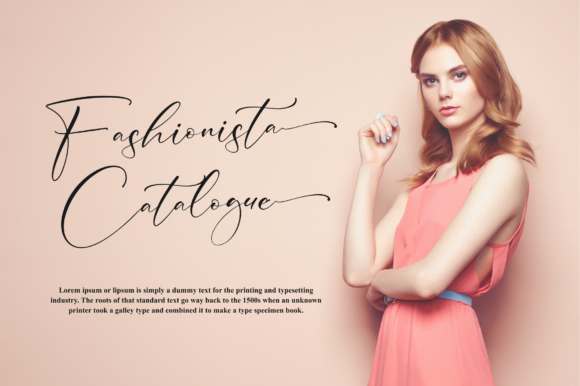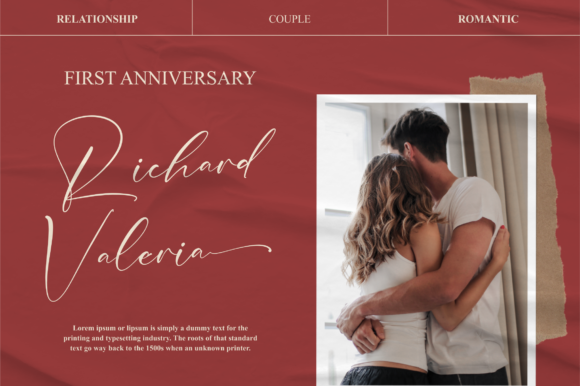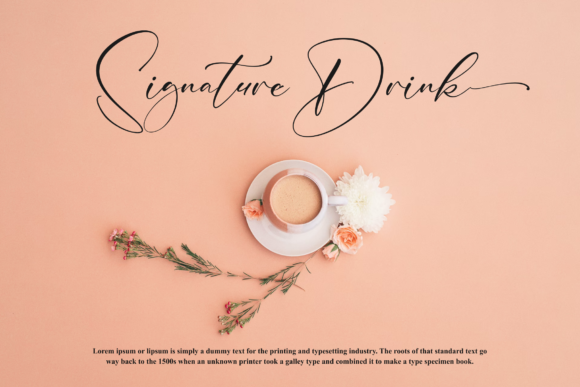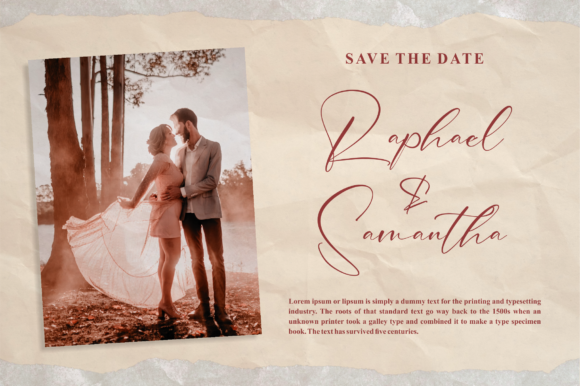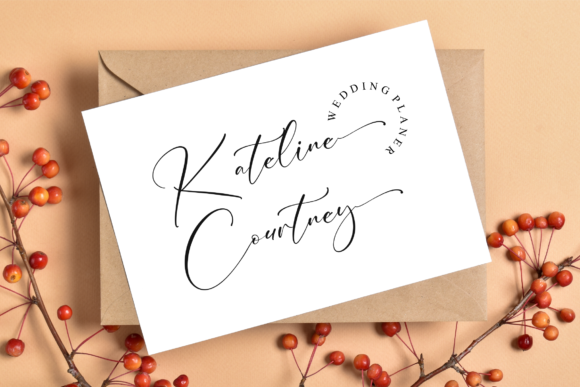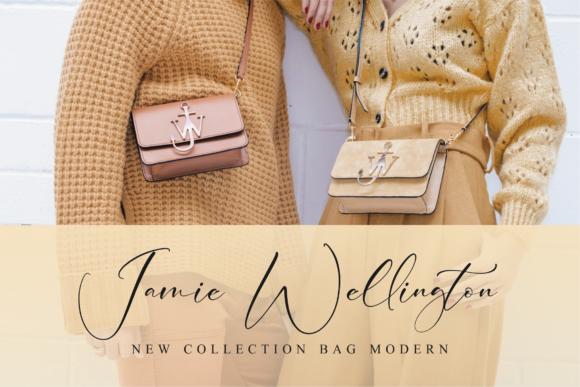
Discover the Perfect Script Font for Your Next Creative Project
Remember that moment when you’re brainstorming ideas for your new branding project, and the perfect font just pops into your mind? For designers, it’s a thrill that never gets old. And, if you’re one of them, you’re in luck because we’re about to introduce you to a font that will take your projects to the next level.
Allaberty Novelya Font is a delicate and fashionable script font that’s perfect for logos, t-shirt printing, creative products, and more. Its unique style and elegant design make it a valuable addition to any designer’s toolkit. Whether you’re working on a personal project or a client’s branding, Allaberty Novelya Font is sure to impress. Its versatility and beauty make it a go-to choice for designers who want to create something truly extraordinary.
Allaberty Novelya Font Key Features
- Unique Characteristics: The font features a unique, hand-drawn design with a mix of modern and vintage elements, making it perfect for creative projects and designs that require a touch of elegance and sophistication
Allaberty Novelya Font Review
I’ve had the chance to work with the Allaberty Novelya Font, and I must say it’s a mixed bag. Let’s start with the positives: ✨ the font’s elegant, cursive script is perfect for adding a touch of sophistication to any design. ✨ The high x-height and refined terminals make it easy to read, even at smaller font sizes. ✨ The font’s versatility is also impressive, as it works well for both formal and informal designs.
However, there are some limitations to consider: ⚠️ The font’s irregularities can sometimes make it difficult to achieve consistent spacing between lines. ⚠️ The font’s design may not be suitable for designs that require a lot of bold, block text, as the font’s lines can become crowded and difficult to read. ⚠️ Additionally, the font’s high x-height can sometimes make it look a bit too condensed, especially at larger font sizes.
Overall, I’d say the Allaberty Novelya Font is a solid choice for designers looking for a elegant, cursive script. However, it may not be the best fit for every design project. With a bit of finesse and attention to detail, this font can add a lot of character to your designs.
- Perfect for adding a touch of sophistication to designs
- Easy to read, even at smaller font sizes
- Versatile and works well for both formal and informal designs
Tips for Getting the Most Out of Allaberty Novelya Font
Use Allaberty Novelya Font for titles, headings, and other prominent text elements.
Combine with bold or italic styles to create visual interest.
Experiment with different font sizes and colors to create a unique look.
Wedding invitations
Branding materials
Marketing materials
Design projects that require a unique and elegant font style
Alternatives to “Allaberty Novelya Font” for Designers
The Great Vibes Font is a beautiful, elegant script font perfect for adding a touch of sophistication and luxury to any design project. It’s ideal for use in wedding invitations, menus, and other high-end branding materials. Compared to Allaberty Novelya Font, Great Vibes Font has a more refined and polished look, making it suitable for more formal and professional applications.
The Carolyna Pro Font is a modern, elegant script font designed for high-end branding and luxury products. It’s perfect for use in fashion, beauty, and lifestyle branding materials. Compared to Allaberty Novelya Font, Carolyna Pro Font has a more modern and sleek look, making it ideal for contemporary and trendy designs.